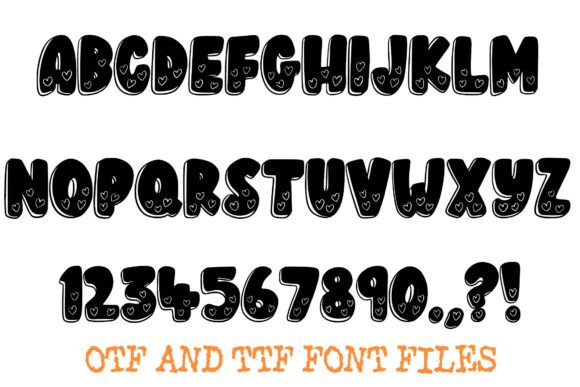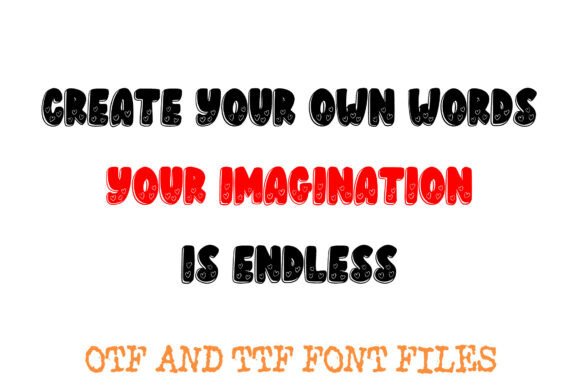
Make a Massive Statement of Love with the Chunky Heart Valentines Font
Are you looking for a font that screams love and attention-grabbing style? Look no further than the Chunky Heart Valentines Font! This high-impact display typeface is designed to make a massive statement, featuring thick, “puffy” bubble characters with a solid black fill that demands attention. Whether you’re creating bold apparel for Galentine’s Day or sweet digital graphics for February 14th, this font is the perfect choice for designers and crafters who want to capture the spirit of the holiday.
What Makes the Chunky Heart Valentines Font So Special?
The Chunky Heart Valentines Font is more than just a pretty face – it’s a carefully crafted typeface designed to make your headlines stand out. Each letter and number is uniquely decorated with a scattering of tiny, hand-drawn white hearts nestled inside, creating a sweet and stylish “cutout” effect that’s perfect for the Valentine’s season. The heavy, rounded weight of these characters ensures that your text pops against any light-colored background or photograph, making it ideal for creating bold and eye-catching designs.
Why Designers Love This Font
So, what makes the Chunky Heart Valentines Font a favorite among designers? For starters, its bold high-contrast design makes it perfect for creating striking headlines that grab attention. The solid black silhouettes provide a clean and modern look that’s perfect for digital graphics, while the integrated heart doodles add a touch of romantic whimsy that’s sure to delight. Here are just a few reasons why designers love this font:
- Bold High-Contrast Design: The solid black silhouettes make your text pop against any light-colored background or photograph, creating a striking visual effect that’s hard to ignore.
- Integrated Heart Doodles: Each character features multiple white hearts scattered throughout, adding a playful and romantic touch to your designs.
- Perfect for Valentine’s Day: The Chunky Heart Valentines Font is specifically designed for the Valentine’s season, making it the perfect choice for creating holiday-themed designs.
How to Use the Chunky Heart Valentines Font
The Chunky Heart Valentines Font is incredibly versatile, making it perfect for a wide range of design projects. Here are just a few ideas to get you started:
- Valentine’s Day Cards and Invitations: Use the Chunky Heart Valentines Font to create bold and eye-catching cards and invitations that are sure to impress.
- Digital Graphics: Create sweet and stylish digital graphics for social media, blogs, or websites using this font.
- T-Shirts and Apparel: Design bold and stylish apparel for Galentine’s Day or Valentine’s Day using the Chunky Heart Valentines Font.
- Party Decorations: Use this font to create eye-catching party decorations, such as banners, garlands, and more.
Tips and Tricks for Working with the Chunky Heart Valentines Font
Here are a few tips and tricks to help you get the most out of the Chunky Heart Valentines Font:
- Experiment with Colors: While the solid black fill and white hearts are a classic combination, don’t be afraid to experiment with different colors to create a unique look.
- Play with Size: The Chunky Heart Valentines Font is designed to make a statement, so don’t be afraid to go big!
- Combine with Other Fonts: Pair the Chunky Heart Valentines Font with other fonts to create a unique and eye-catching combination.
The Chunky Heart Valentines Font is a must-have for designers and crafters who want to create bold and eye-catching designs for the Valentine’s season. With its bold high-contrast design, integrated heart doodles, and perfect-for-Valentine’s-Day vibe, this font is sure to make a massive statement of love. So why wait? Download the Chunky Heart Valentines Font today and start creating stunning designs that capture the spirit of the holiday!